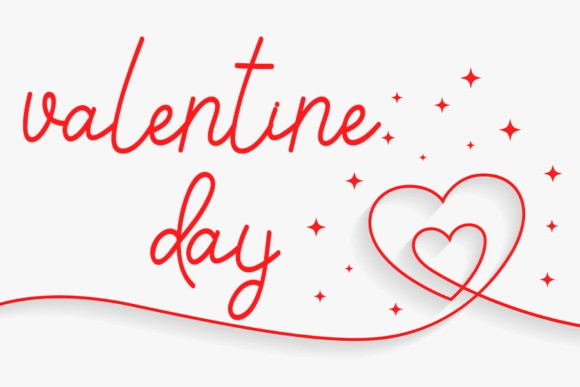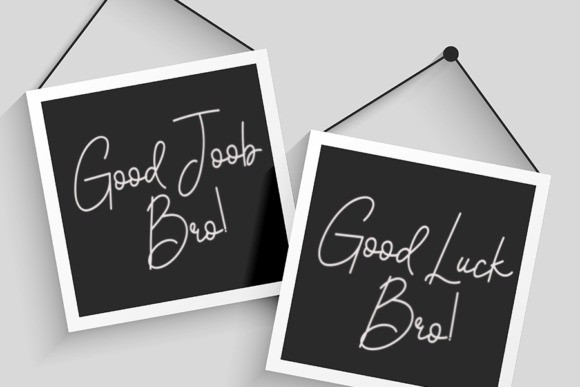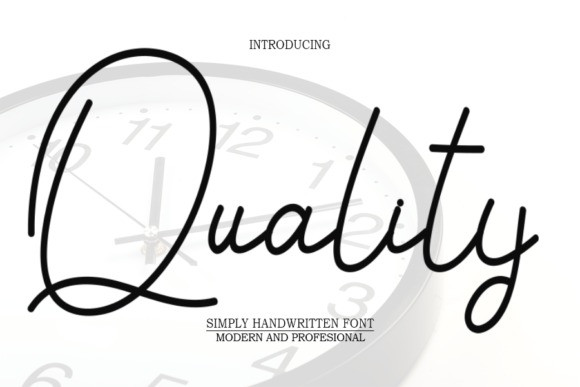
Quality Handwritten Font
Quality Handwritten Font is a sweet and friendly handwritten font. Fun and relaxed, this font is ideal for writing wedding invitations, cards, or any other design that might need a lovely touch!